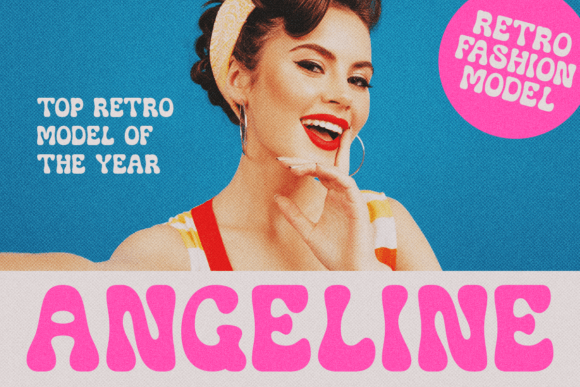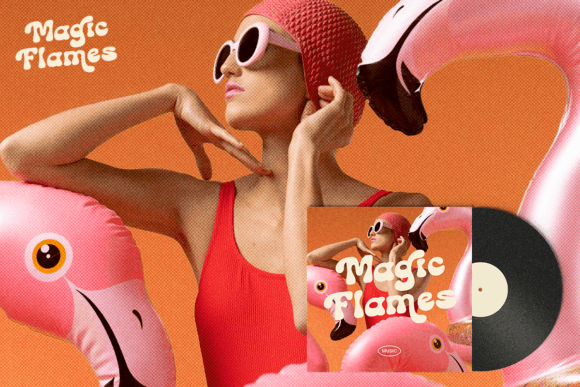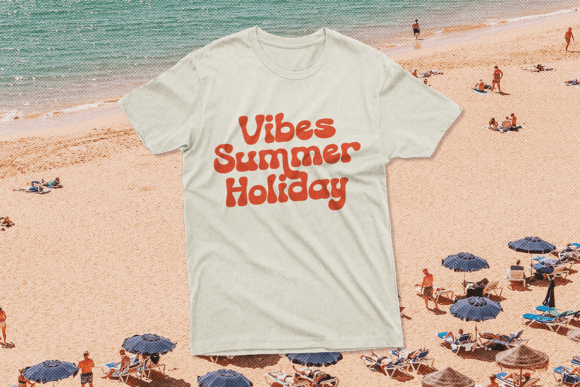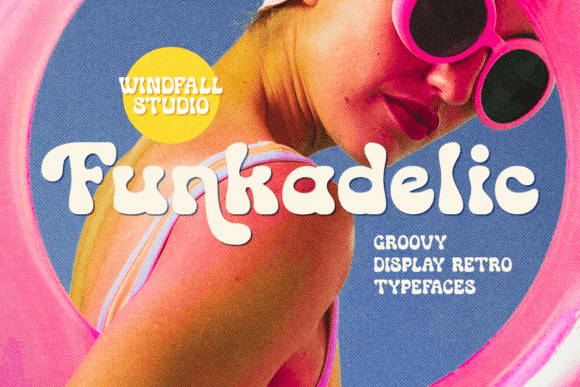
Introduction to Funkadelic Font
Funkadelic is a font that brings a strong vintage retro touch.
Designed with distinctive details from the retro era, this font offers a funky and energetic vibe for your design projects Perfect for titles, posters, branding, merchandise, and more.